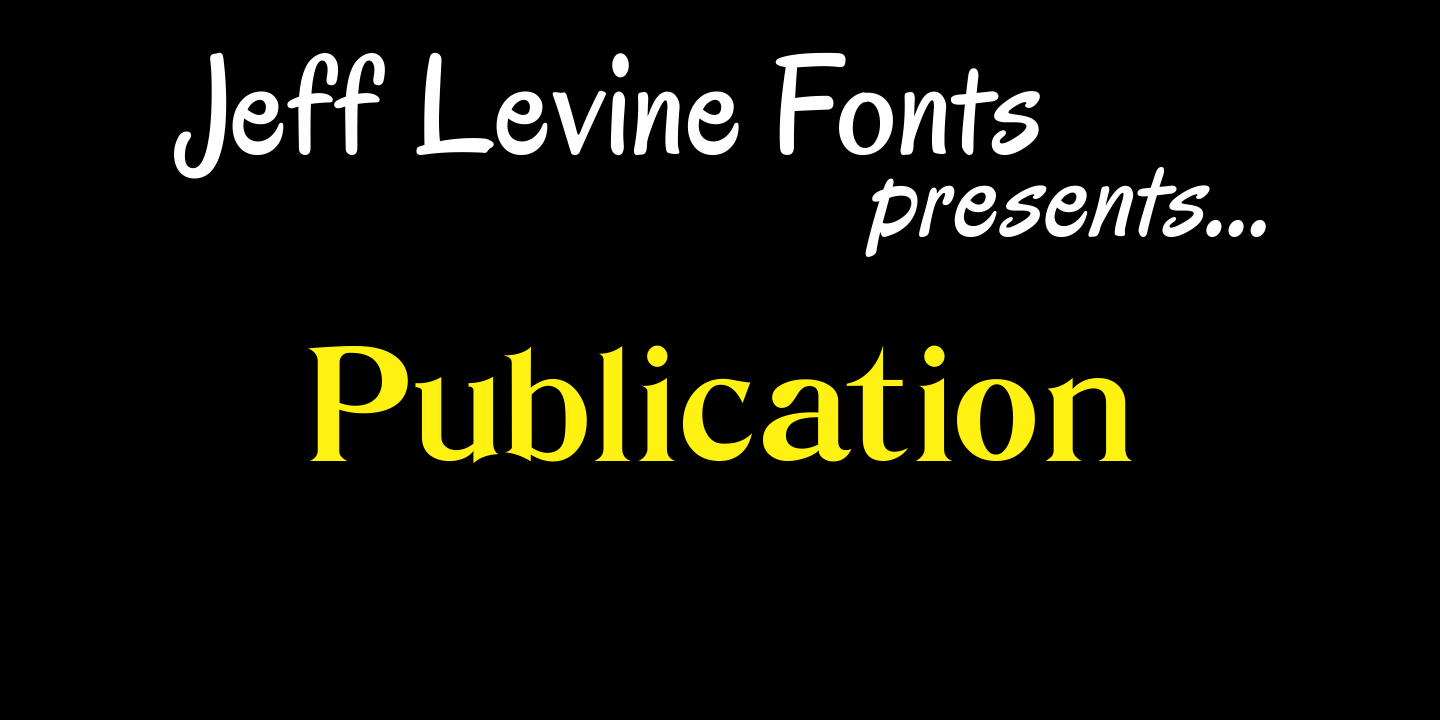
Publication
If Publication JNL looks very familiar, this is no accident of design. It is Jeff Levine's rendering of De Vinne, a classic typeface designed by T.L. De Vinne (circa 1890-91) and given the gentle nuance of emulating hand-set type.
Publication JNL Regular by Jeff Levine Fonts